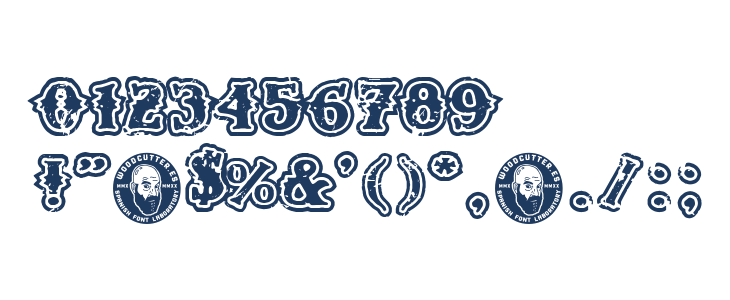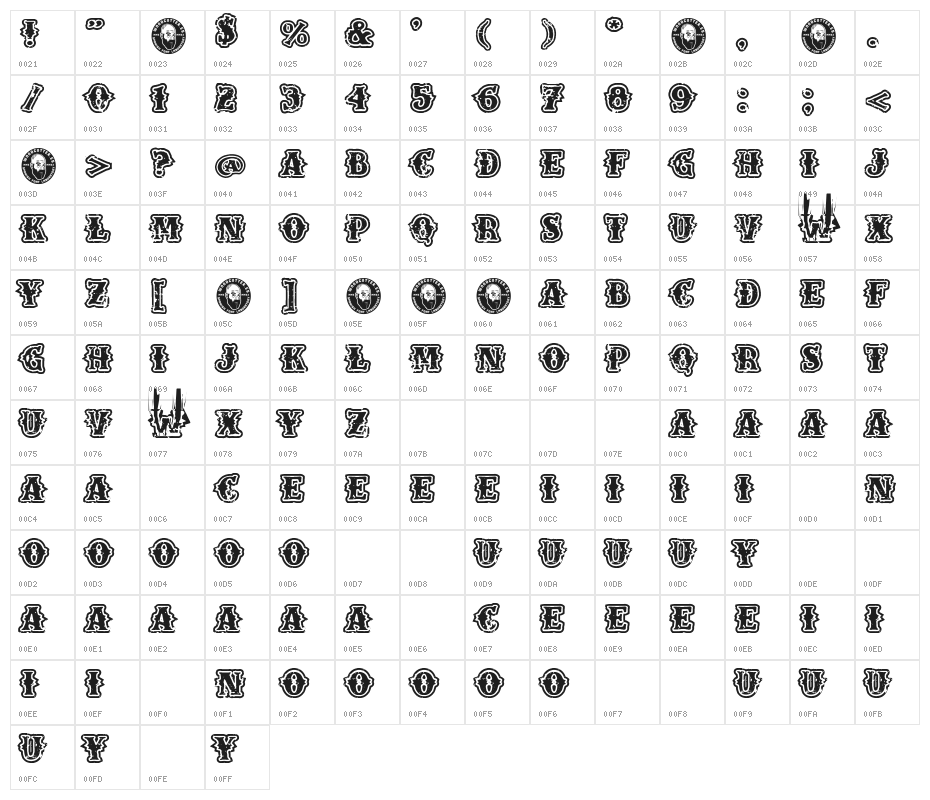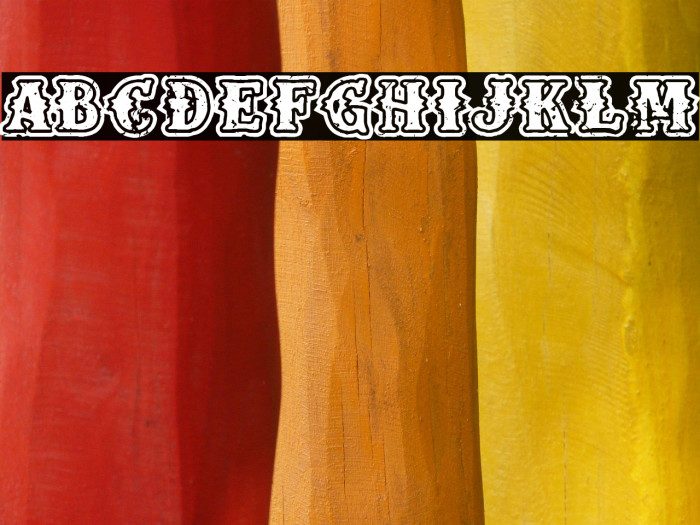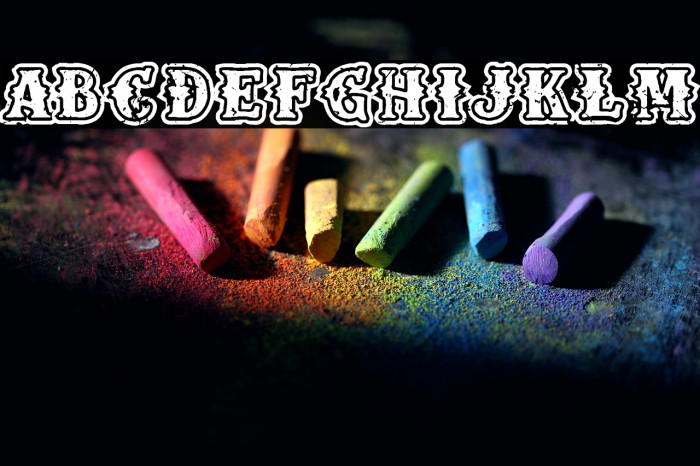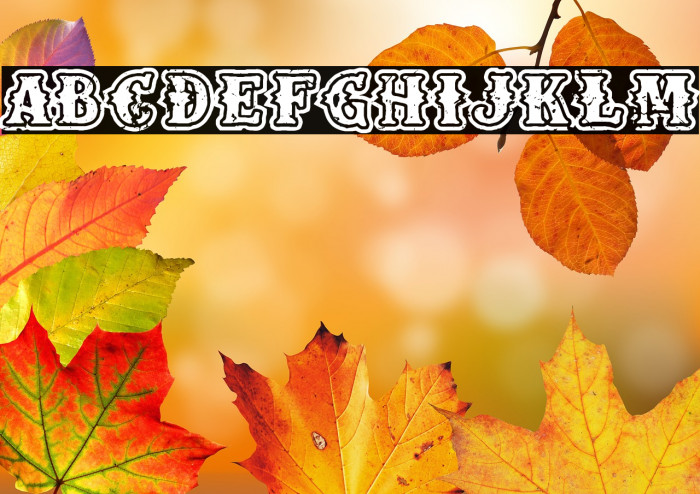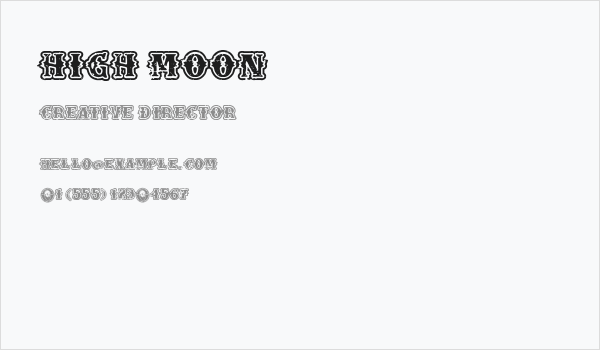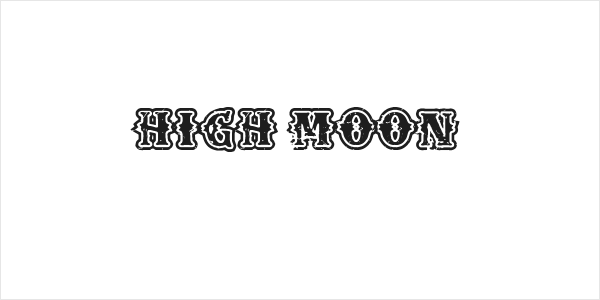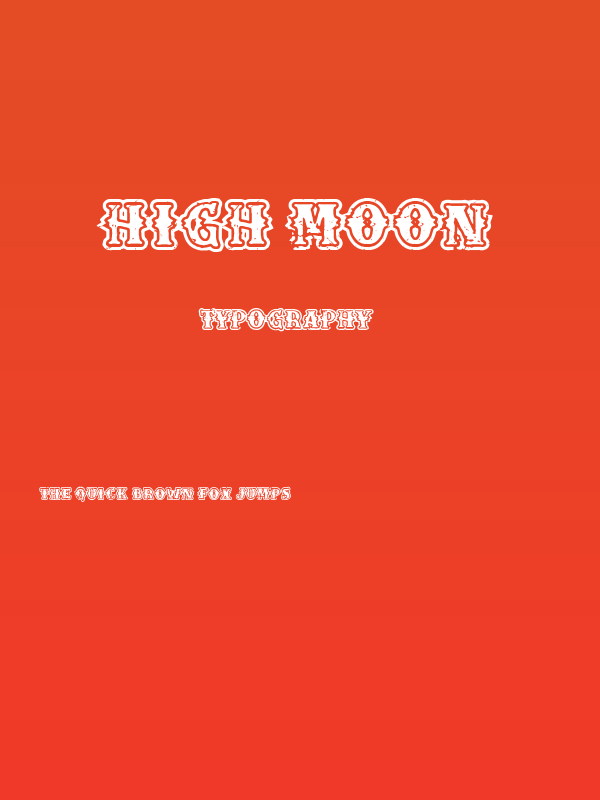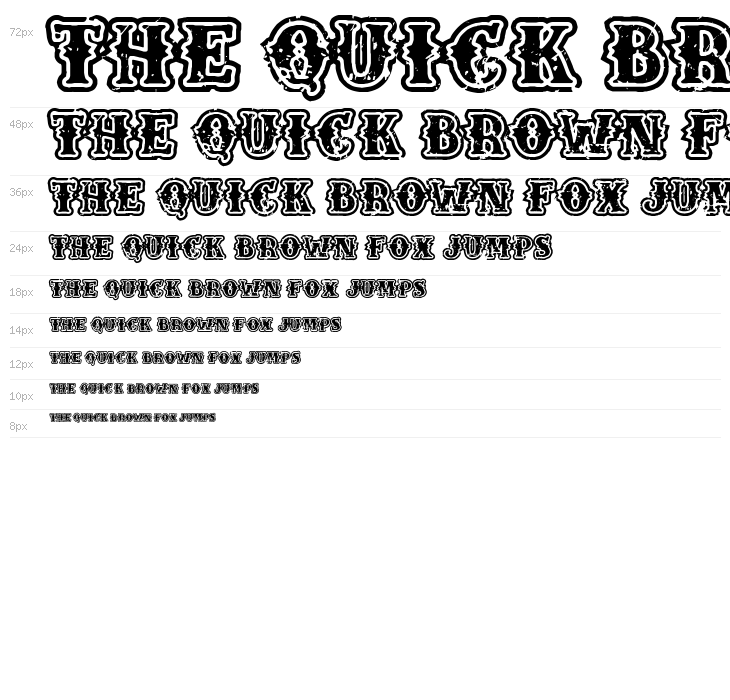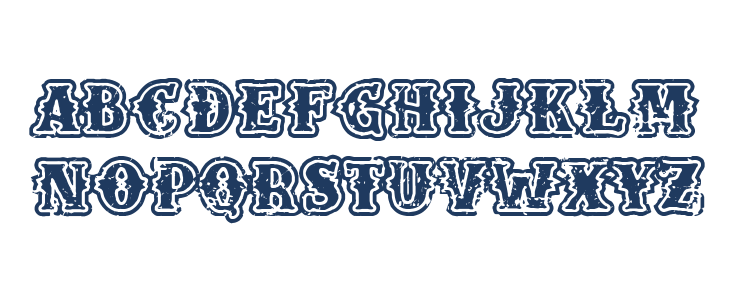
High Moon Font
High Moon Description
This font features a bold, distressed style with a rugged, textured appearance. The characters are outlined with a rough, uneven edge, giving them a vintage, worn look. The uppercase and lowercase letters maintain a consistent design, with each character exhibiting a unique, weathered effect. The numbers and special characters follow the same aesthetic, ensuring a cohesive appearance across all glyphs. This font's design is reminiscent of old western or vintage signage, making it ideal for projects that require a rustic or antique feel.
| Overall Style | Vintage |
| Use Case | Logos, Headlines, Posters |
| Proposed Projects | Ideal for vintage-themed posters, rustic branding, western-style signage, and any design requiring an antique or rugged aesthetic. |